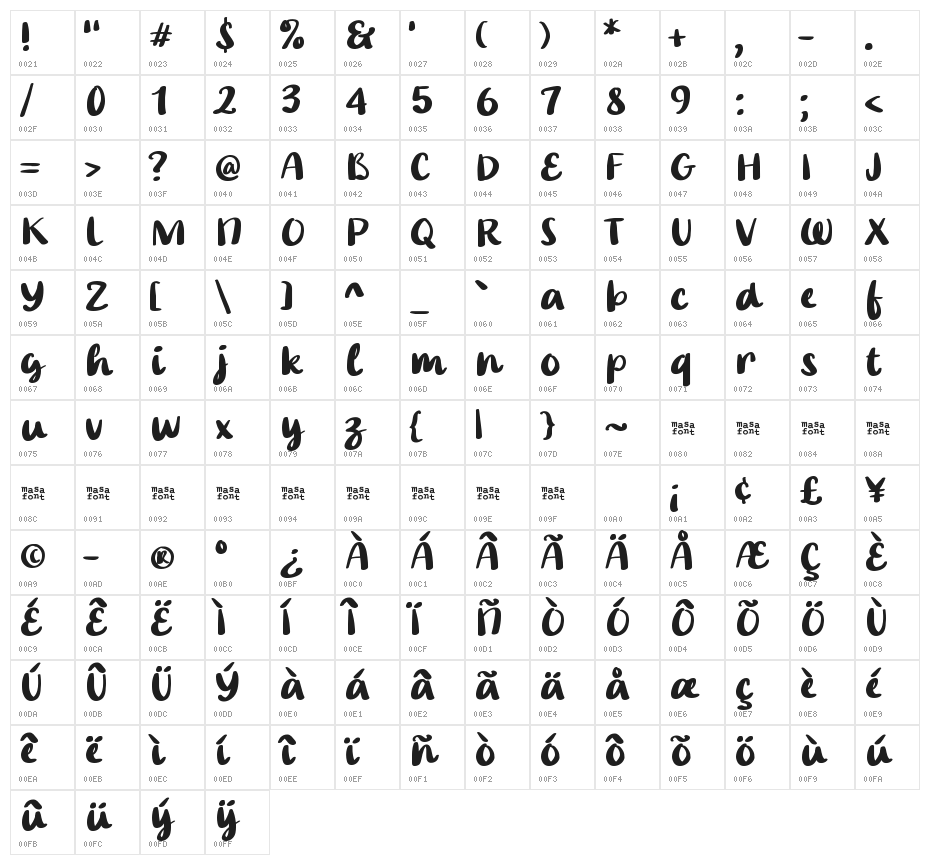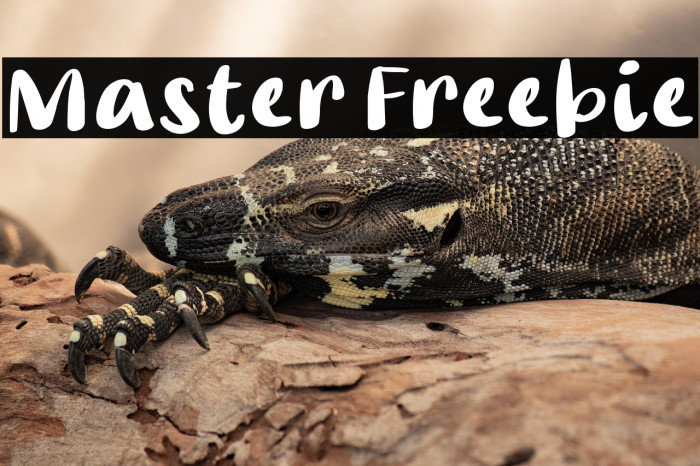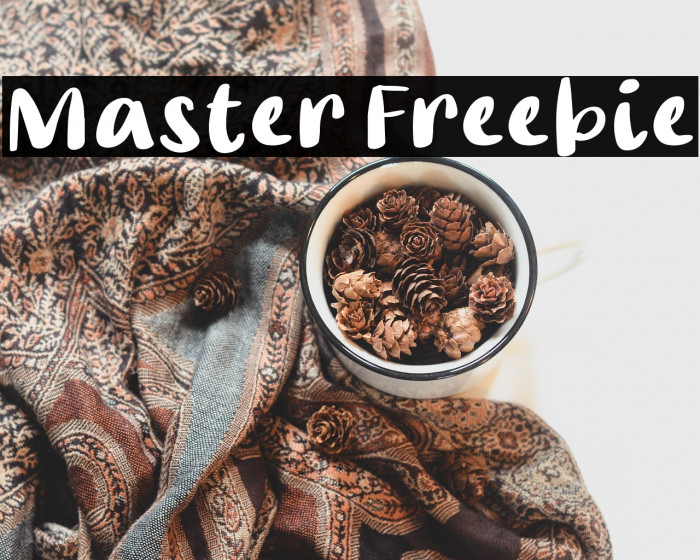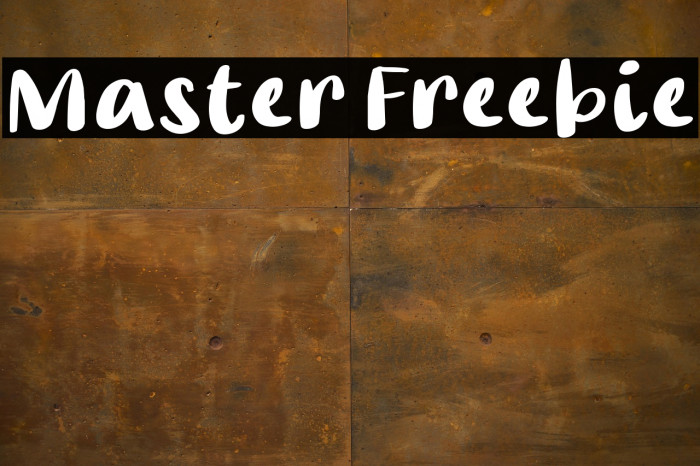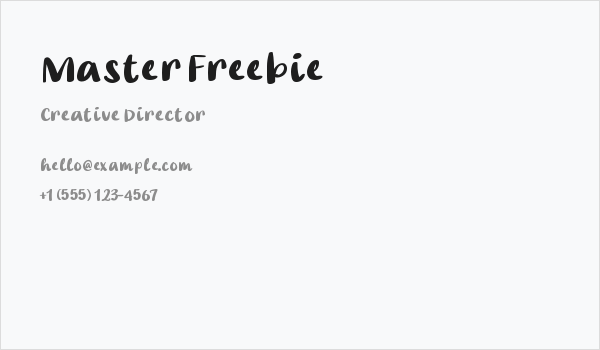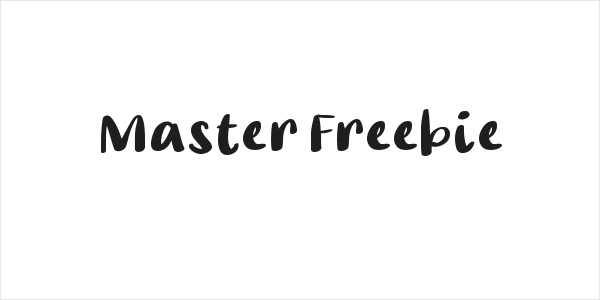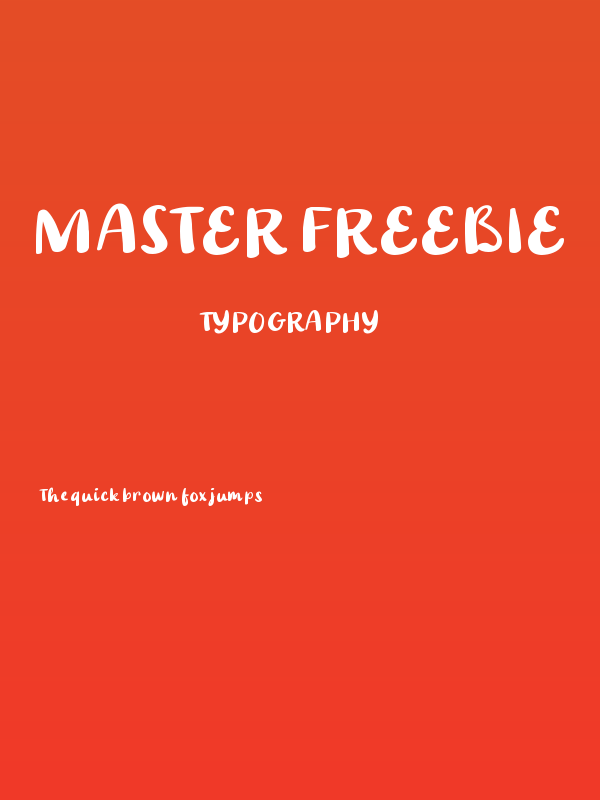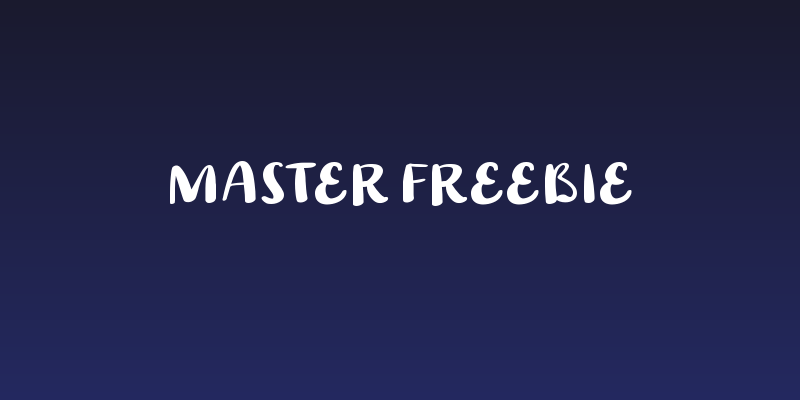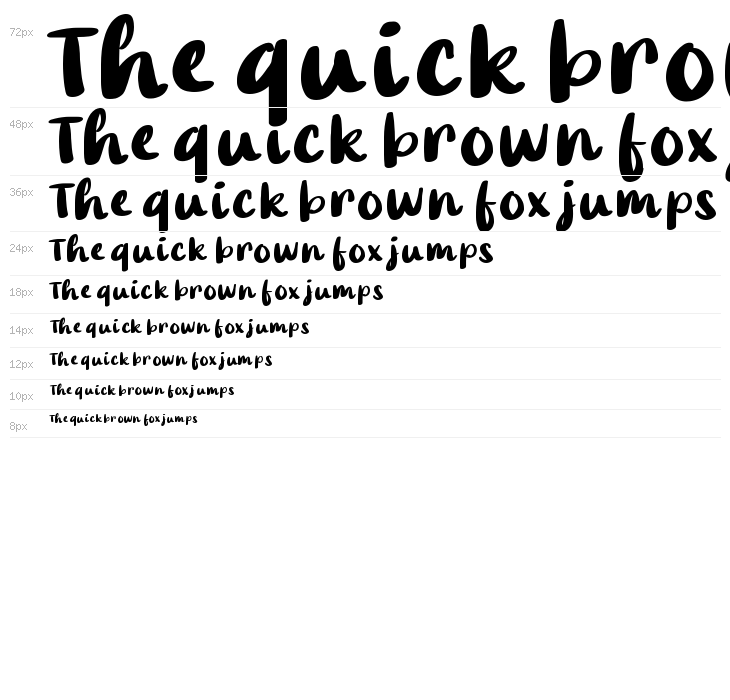
Master Freebie Font
Master Freebie Description
This font features a bold and playful handwritten style, characterized by its thick strokes and rounded edges. The letters have a casual, friendly appearance, making them suitable for informal and creative projects. The uppercase and lowercase letters maintain a consistent style, with a slight slant that adds to the dynamic feel. Numbers and special characters are equally bold and expressive, ensuring readability while maintaining the overall aesthetic. The font's design is modern and approachable, ideal for capturing attention with its lively and energetic vibe.
| Proposed Projects | Ideal for greeting cards, playful branding, children's books, and social media graphics. |